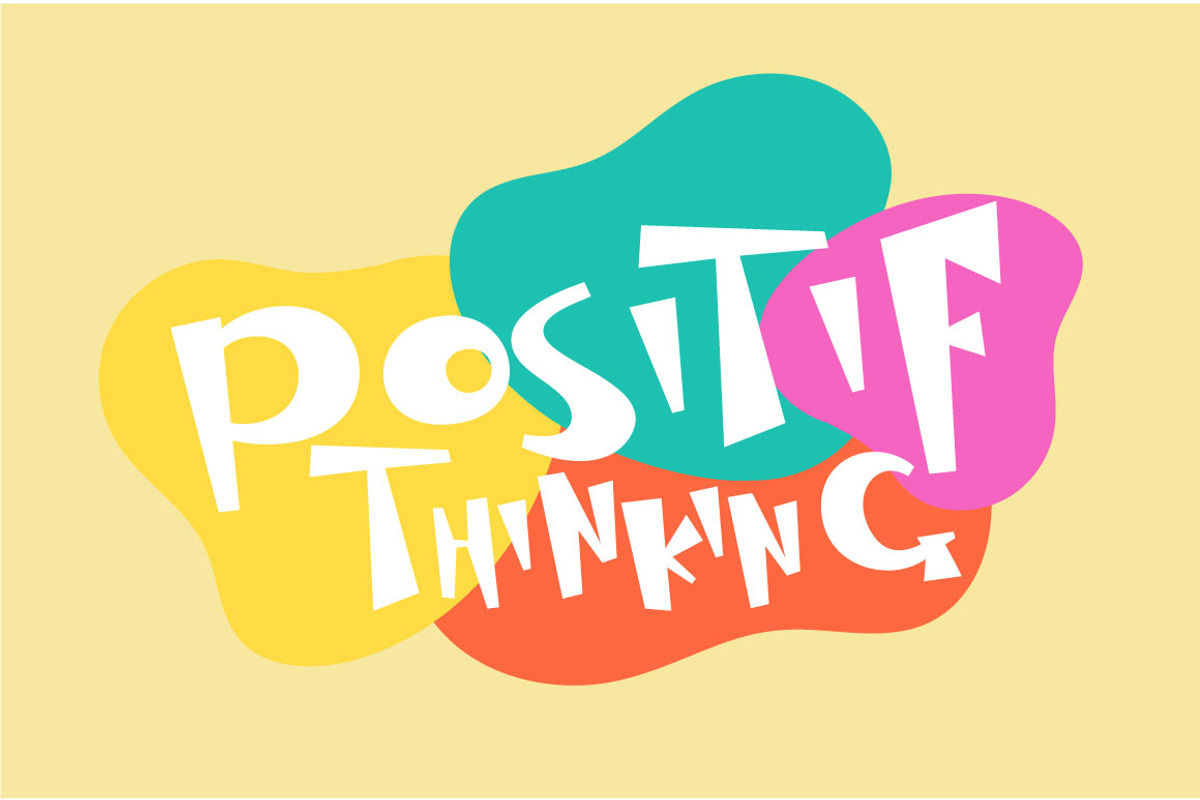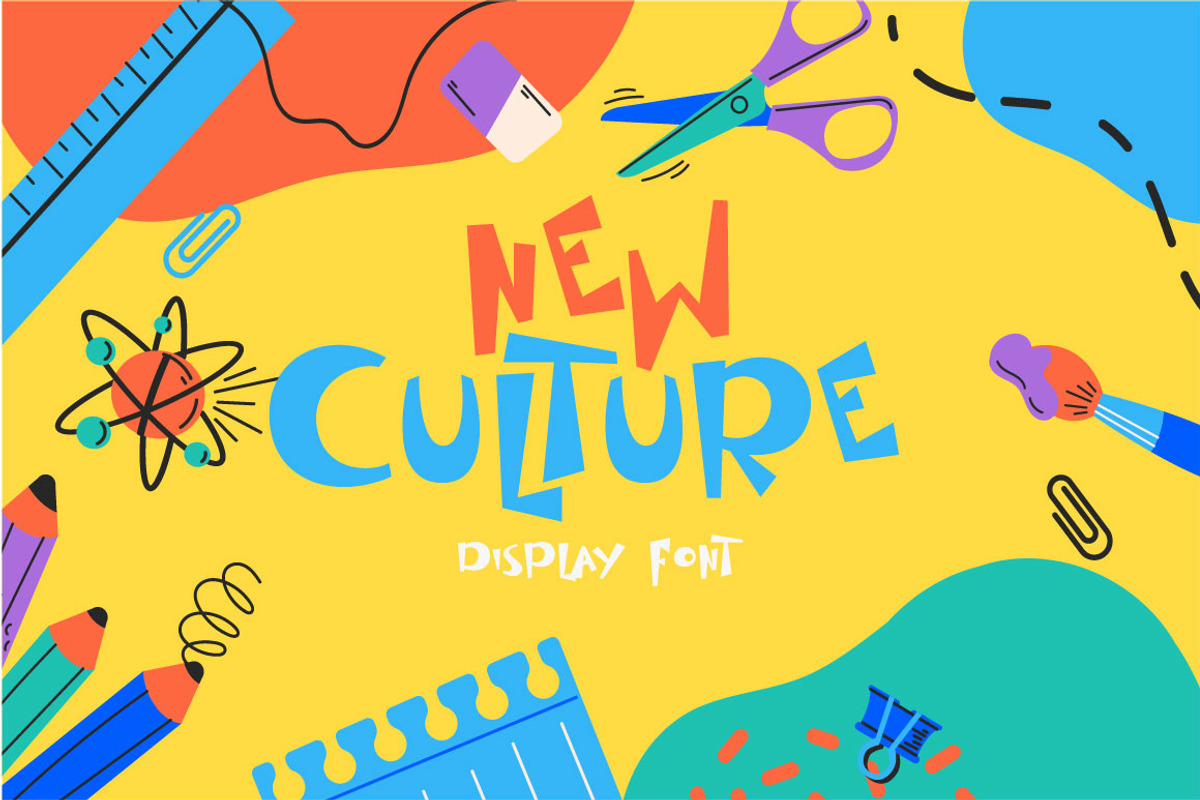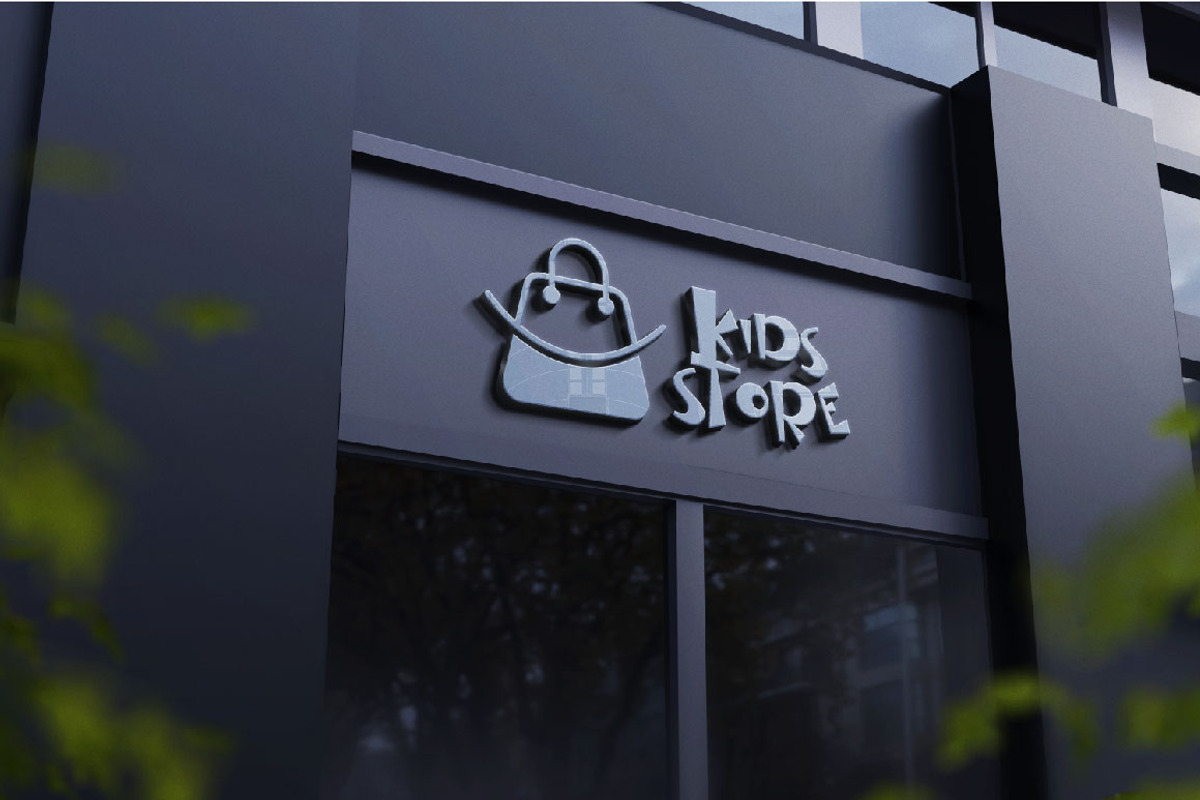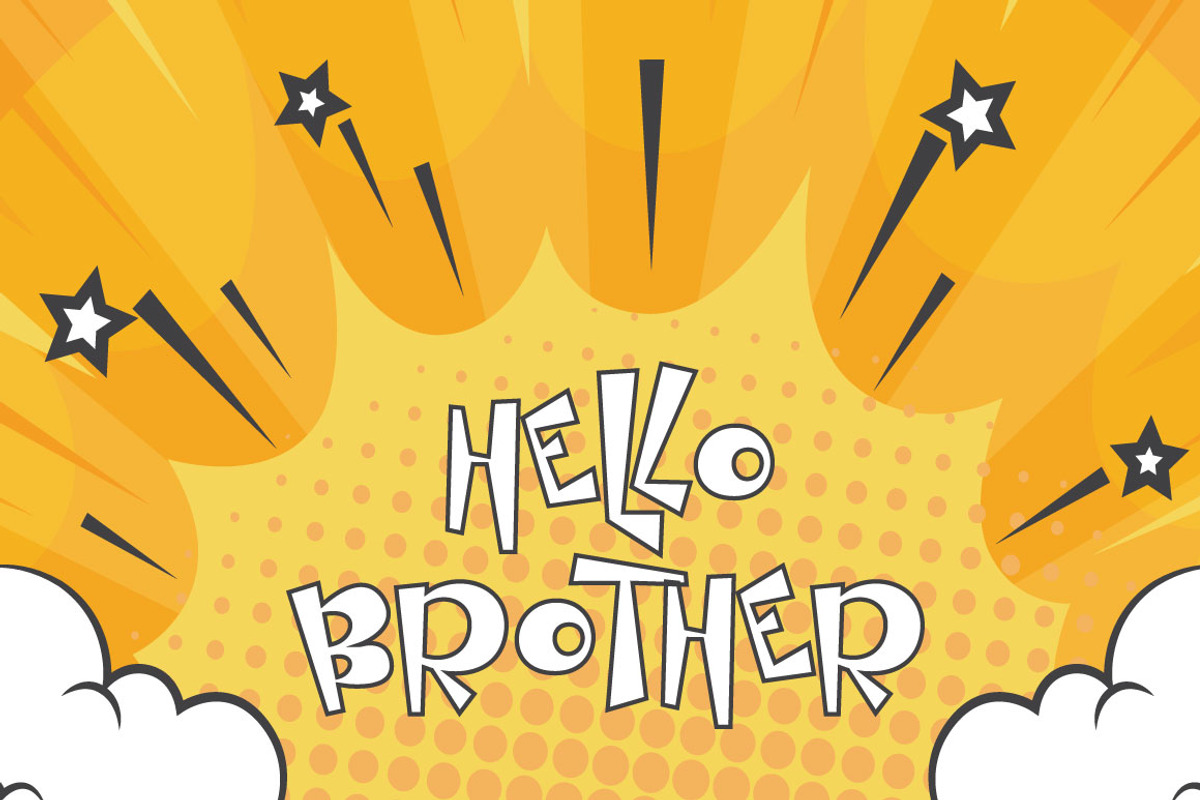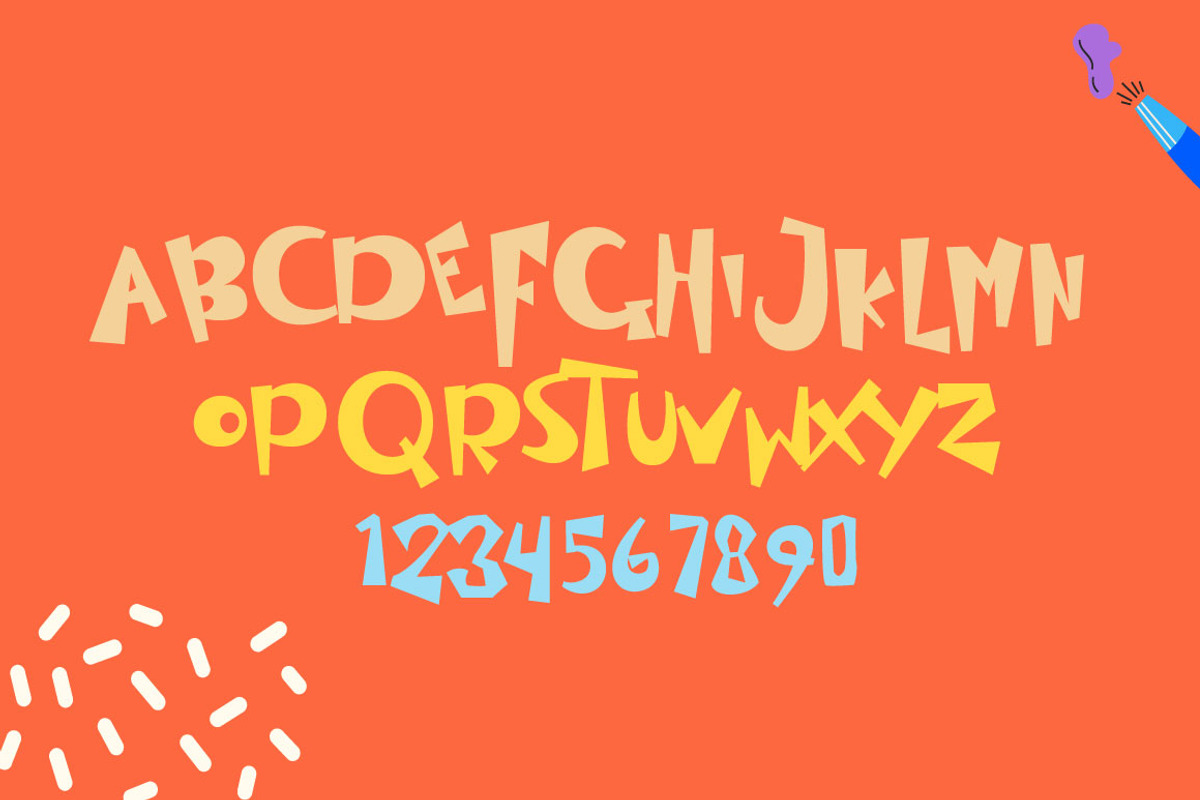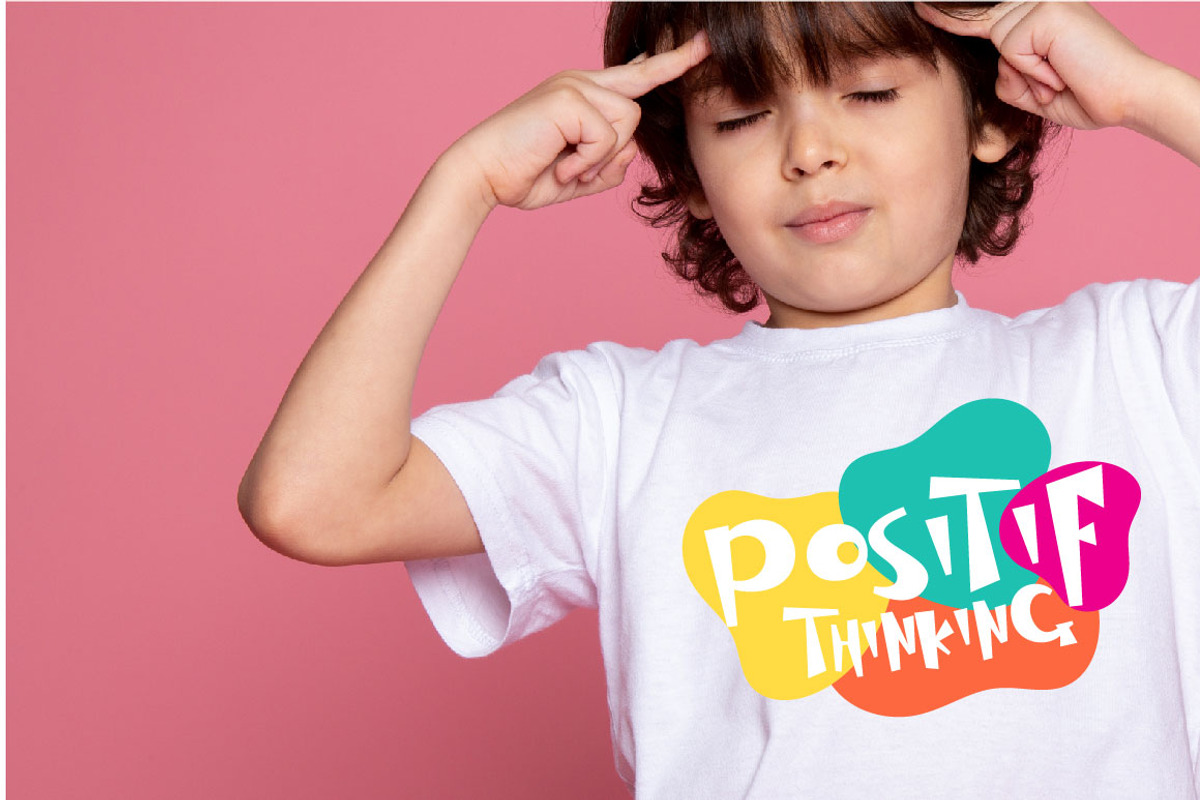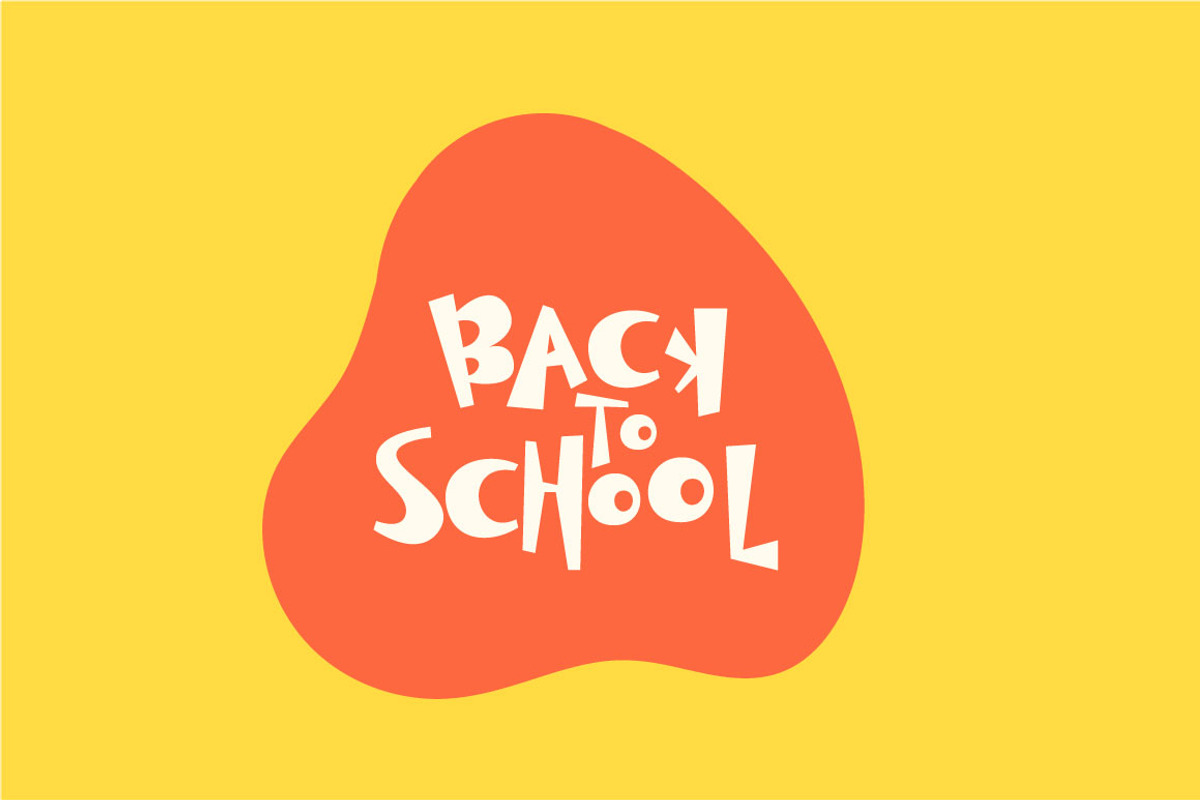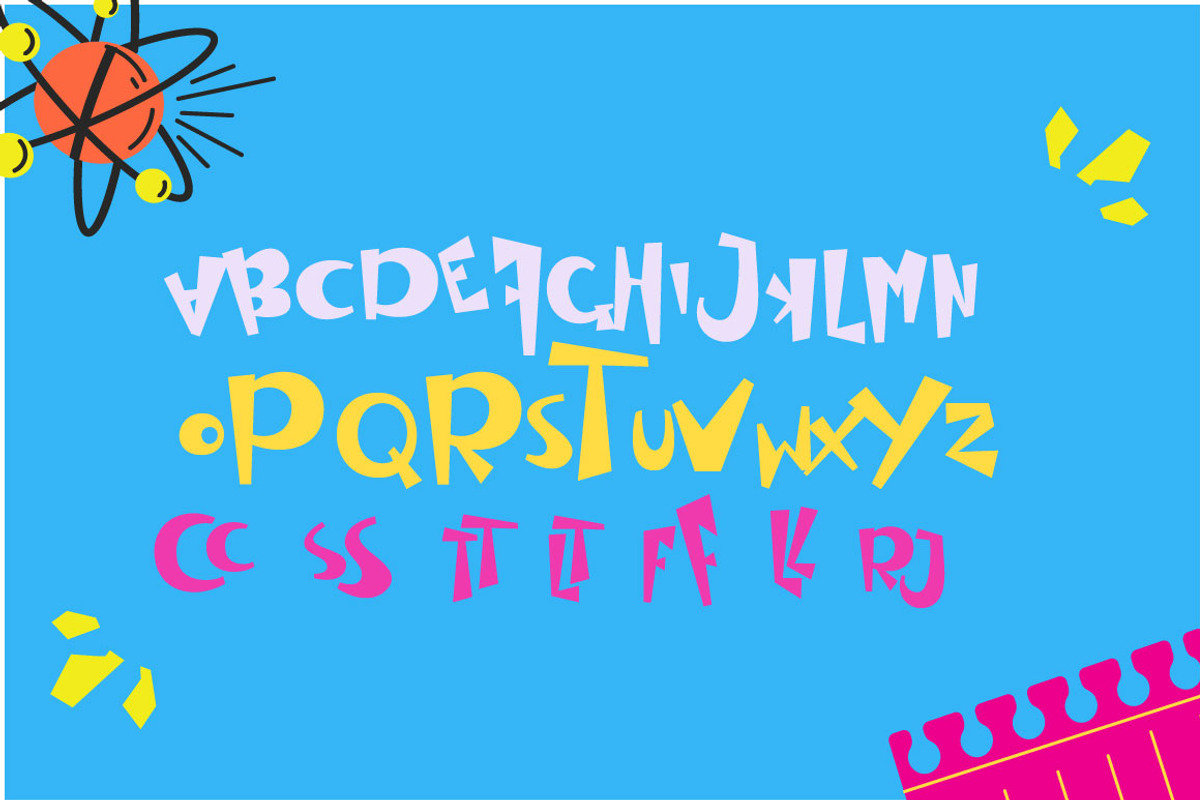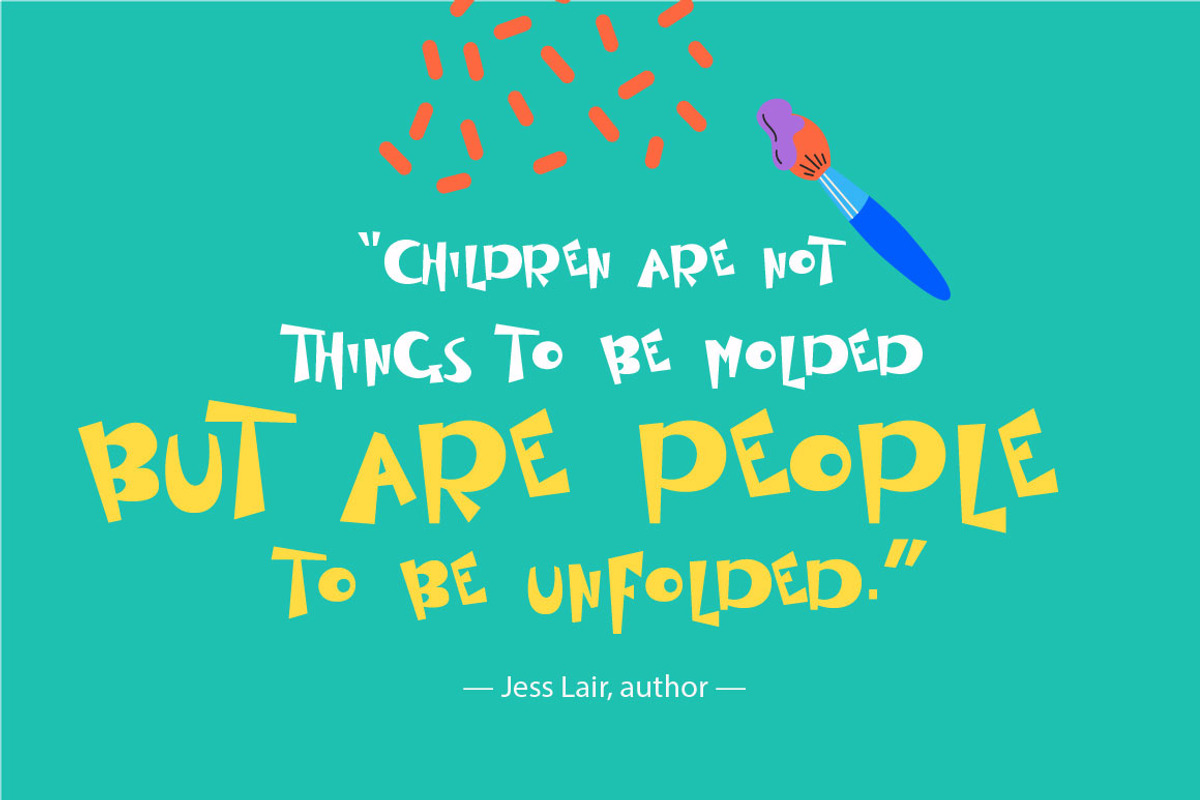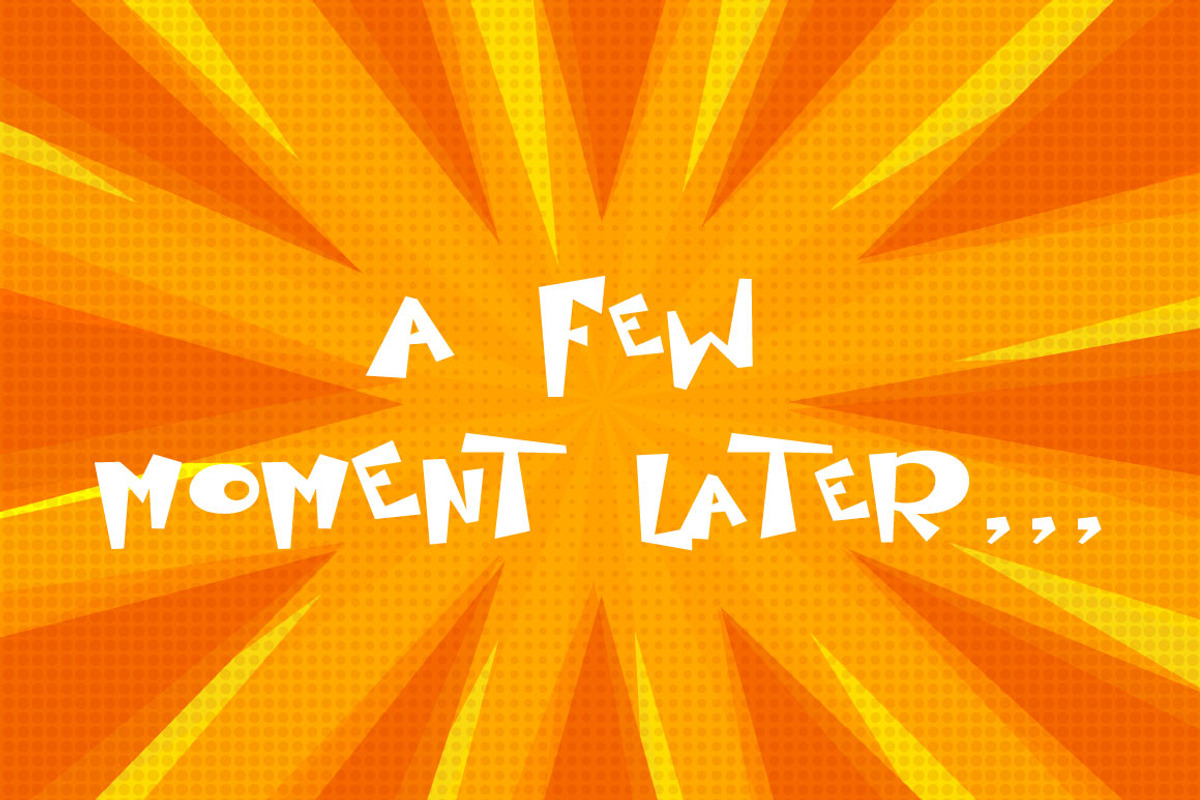
New Culture
New Culture Display Font comes with masculine themes. It matches applies in some designs such as the logotype, brand, packaging, quotes, music poster, t-shirt, cover book, and more custom design. The features uppercase, lowercase, numeral, punctuation & symbol, multilingual support.
New Culture Display Font This font has been equipped with OpenType features and has many glyphs. and of course by having many of these glyphs will be able to choose the letters according to your liking, lots of variations and options for each letter, so you can customize your design choices and also have other languages supported.